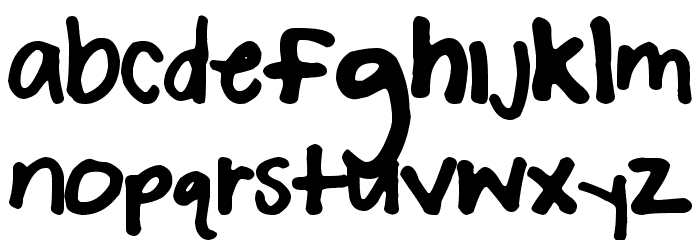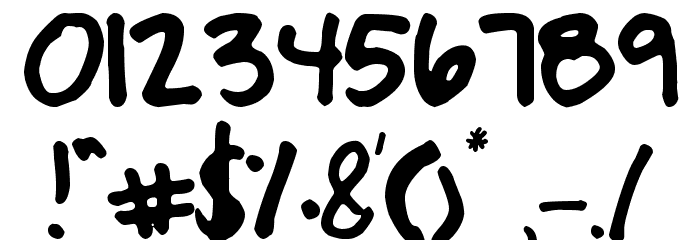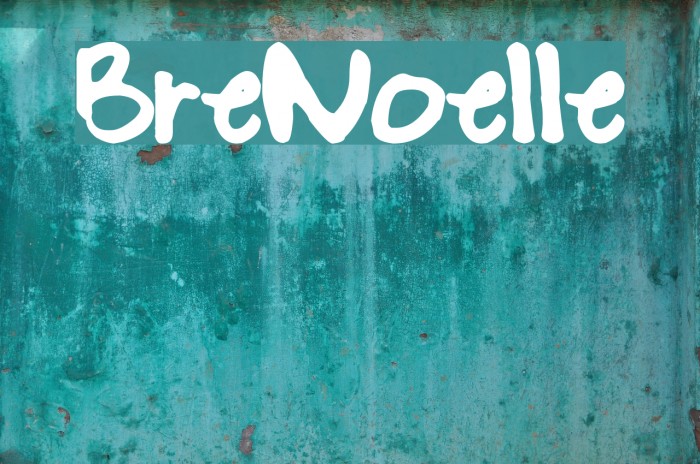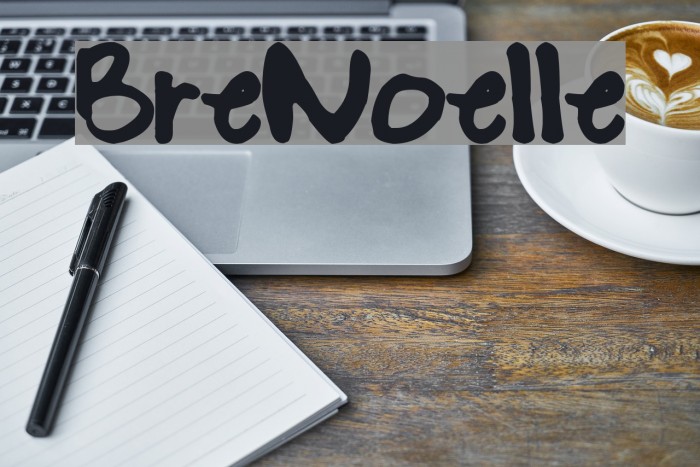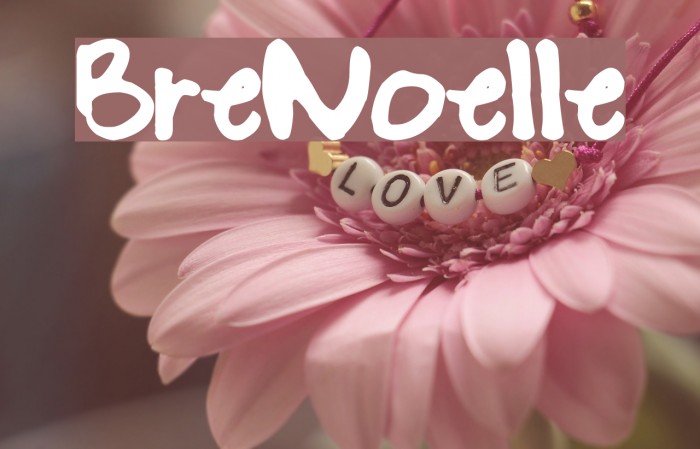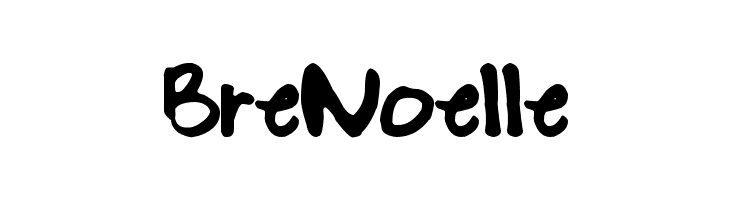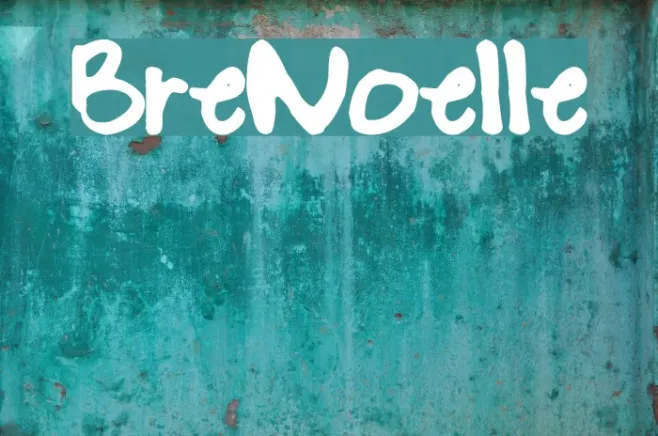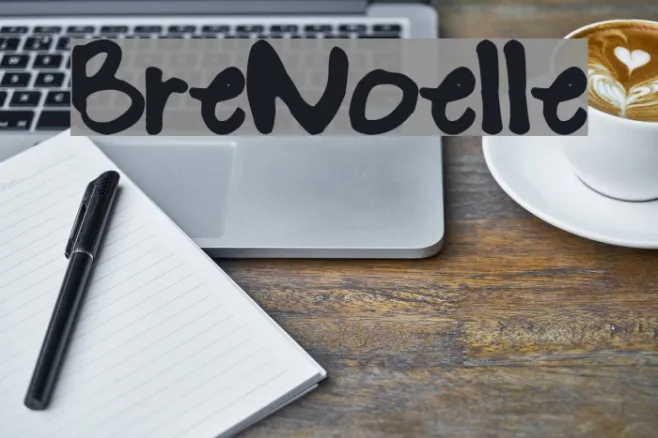
BreNoelle Font
This font features a playful and casual handwritten style, characterized by its bold and slightly irregular strokes. The letters have a spontaneous and organic feel, with varying thickness that adds to its charm. The uppercase and lowercase letters maintain a consistent style, while the numerals and special characters complement the overall look. This font exudes a friendly and approachable vibe, making it suitable for creative and informal projects.
A playful, bold handwritten font with an organic feel.
- Proposed Projects: Ideal for greeting cards, children's books, casual branding, and social media graphics.
- Category: Handwritten
- Overall Style: Casual
- Use Case: Headlines, Logos, Informal Text